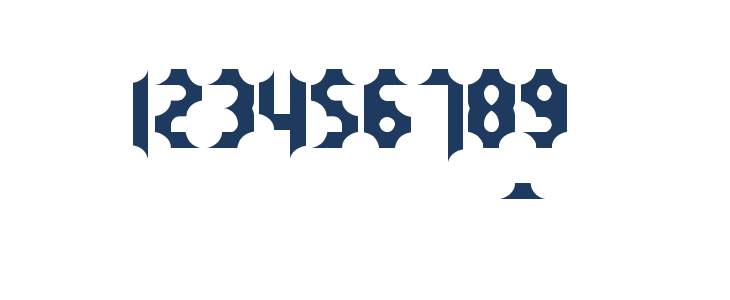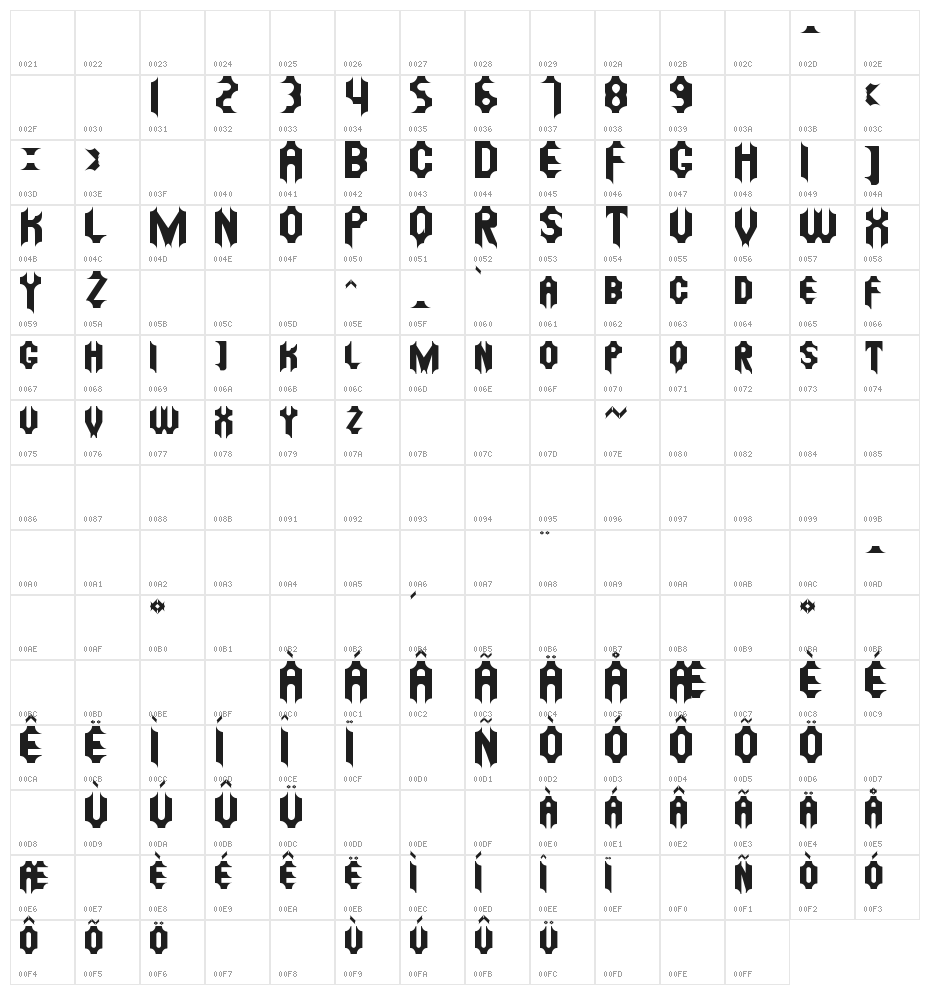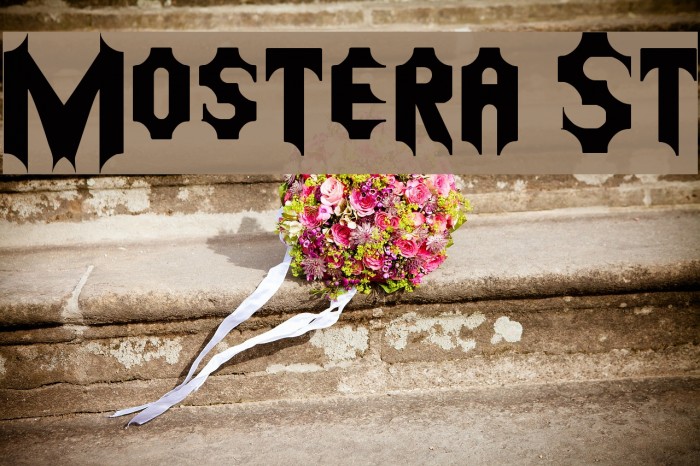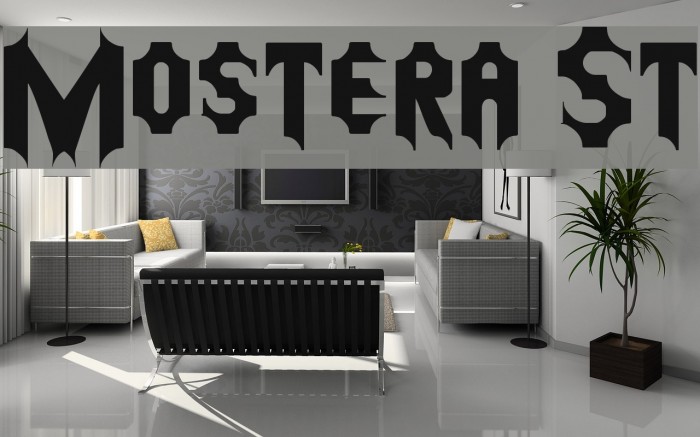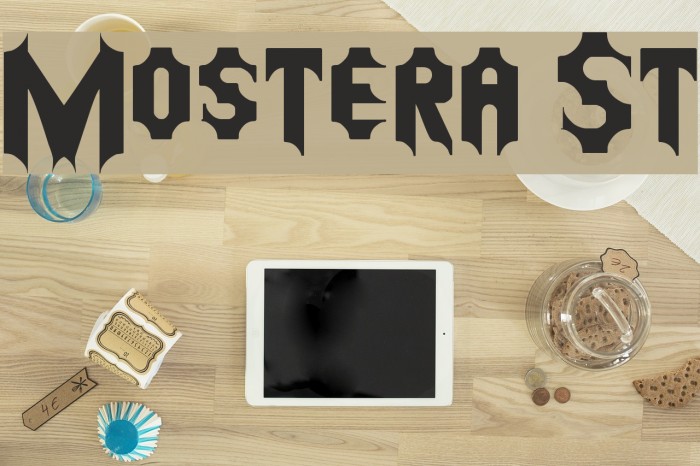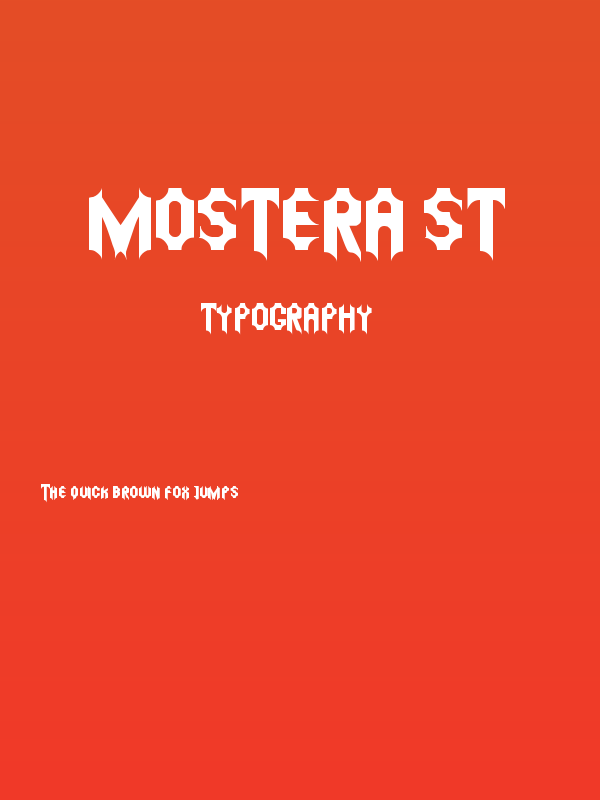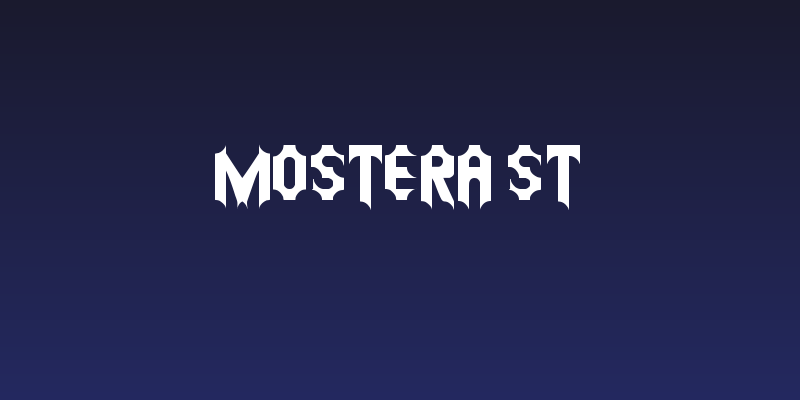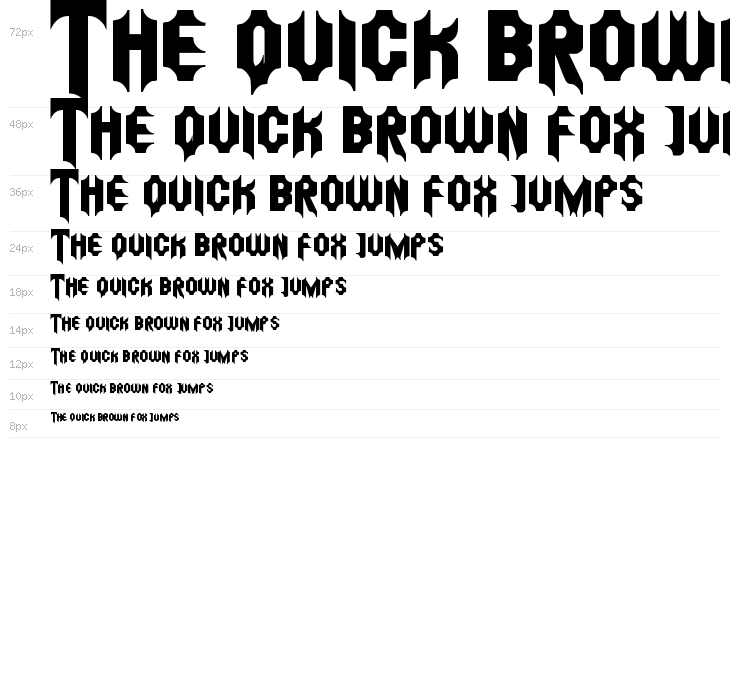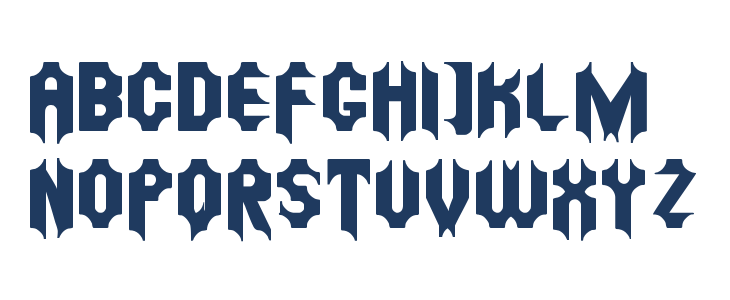
Mostera St Font
Mostera St Description
This font features a bold, geometric design with sharp angles and a strong presence. The uppercase letters are uniform in height, with a distinct, blocky appearance that gives them a modern and edgy feel. The lowercase letters maintain the same angular style, creating a cohesive look across the alphabet. Numbers are equally bold, with unique shapes that stand out. The special characters follow the same design principles, ensuring consistency throughout. This font is ideal for making a statement, with its high contrast and striking visual impact.